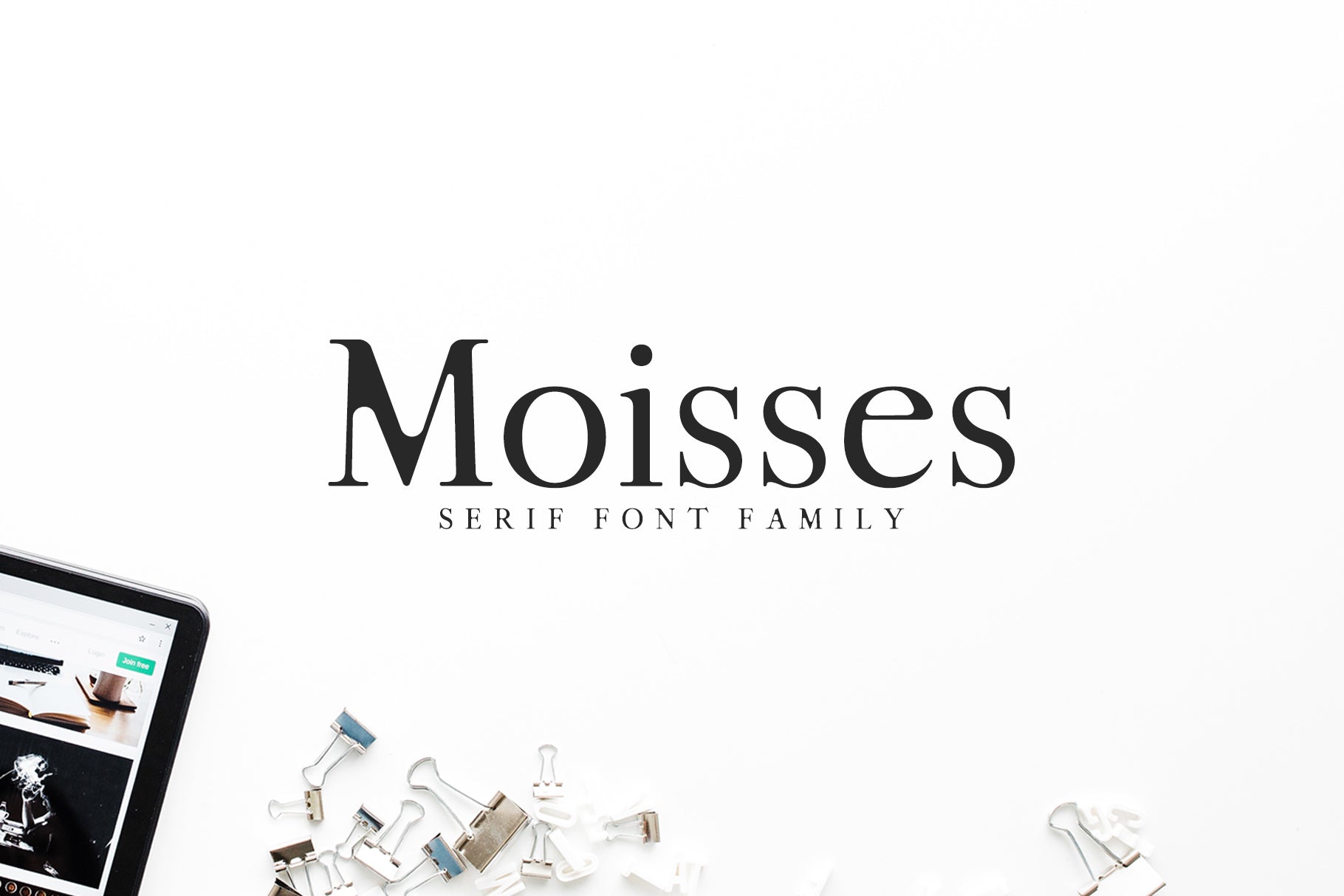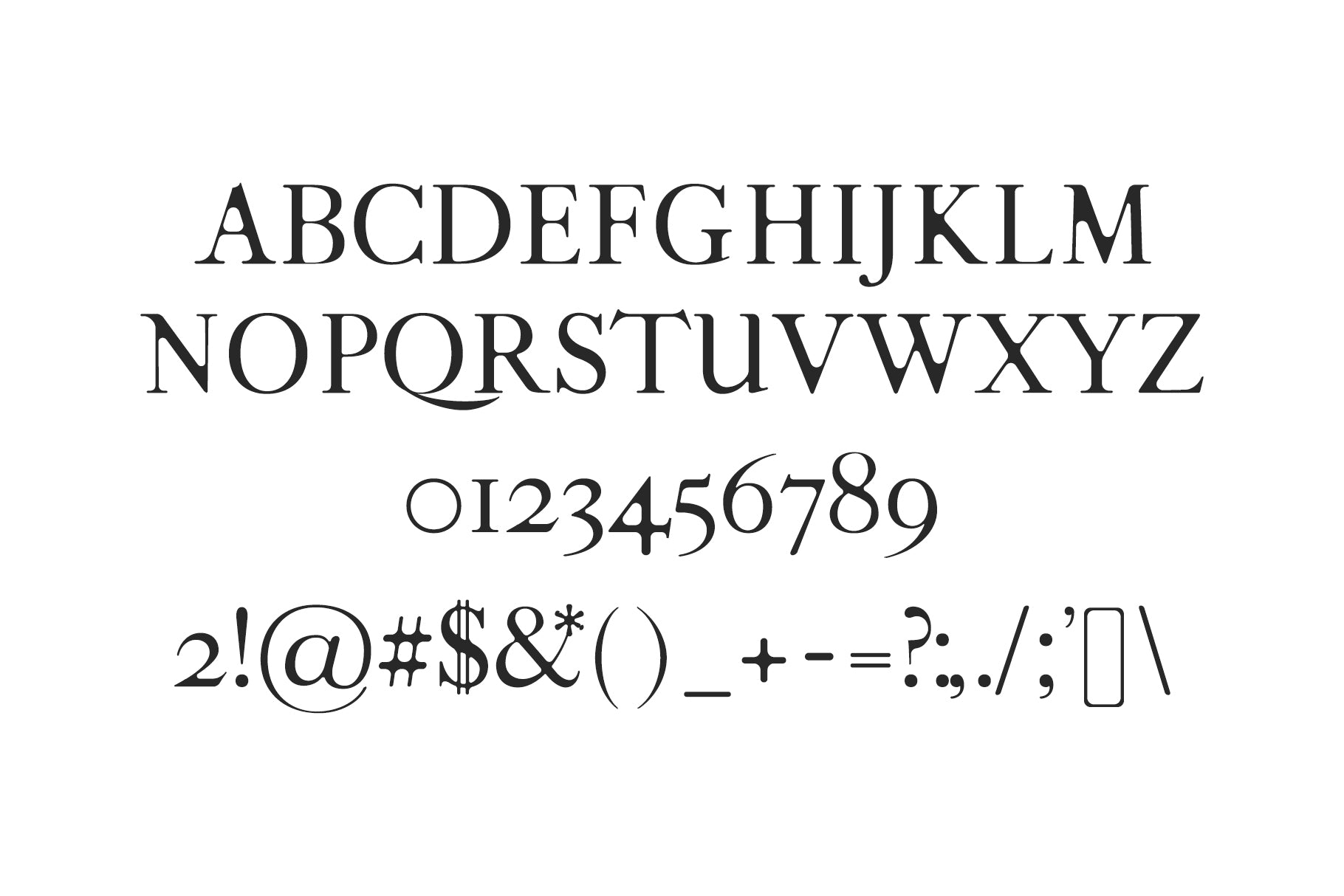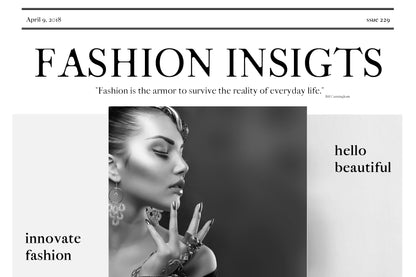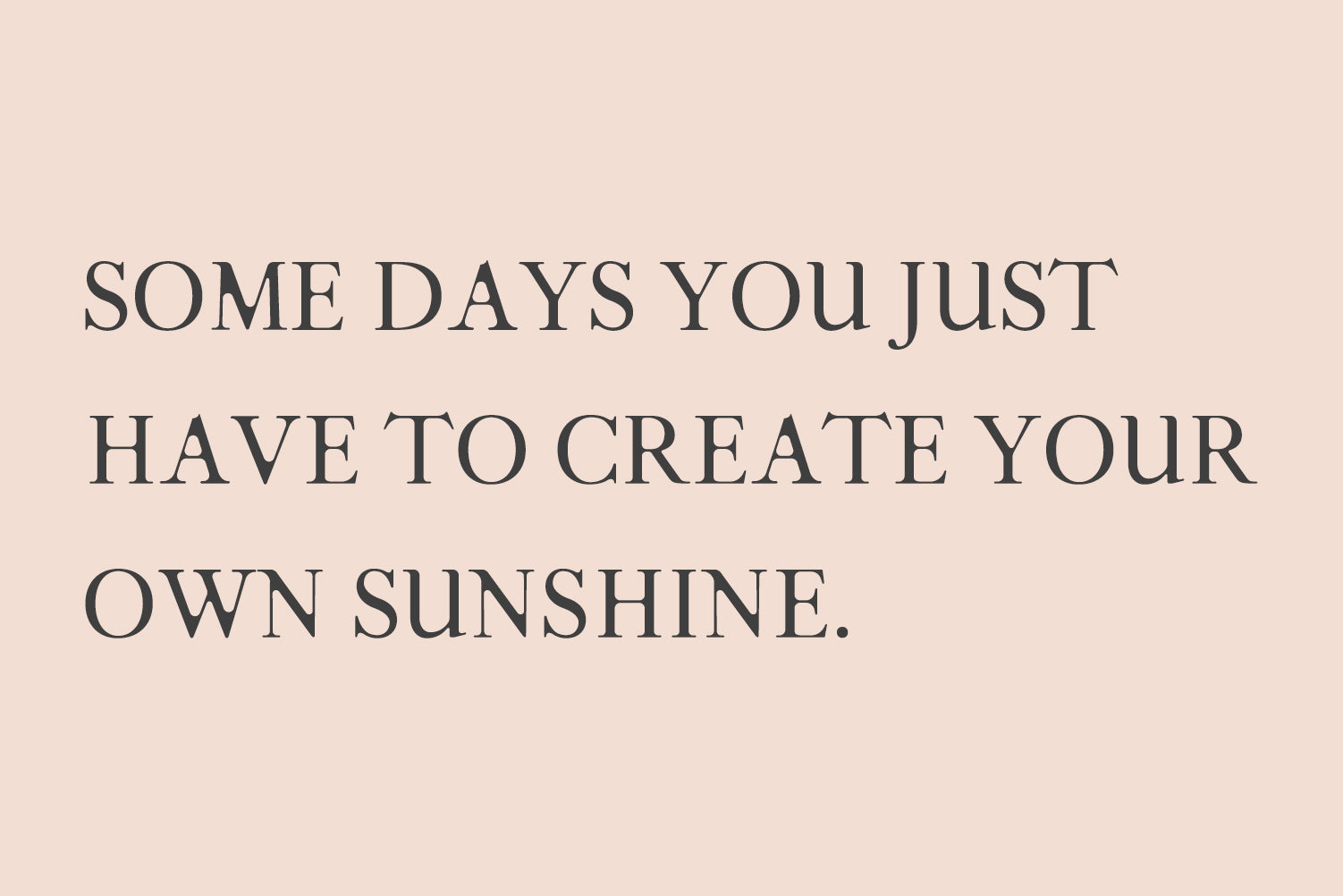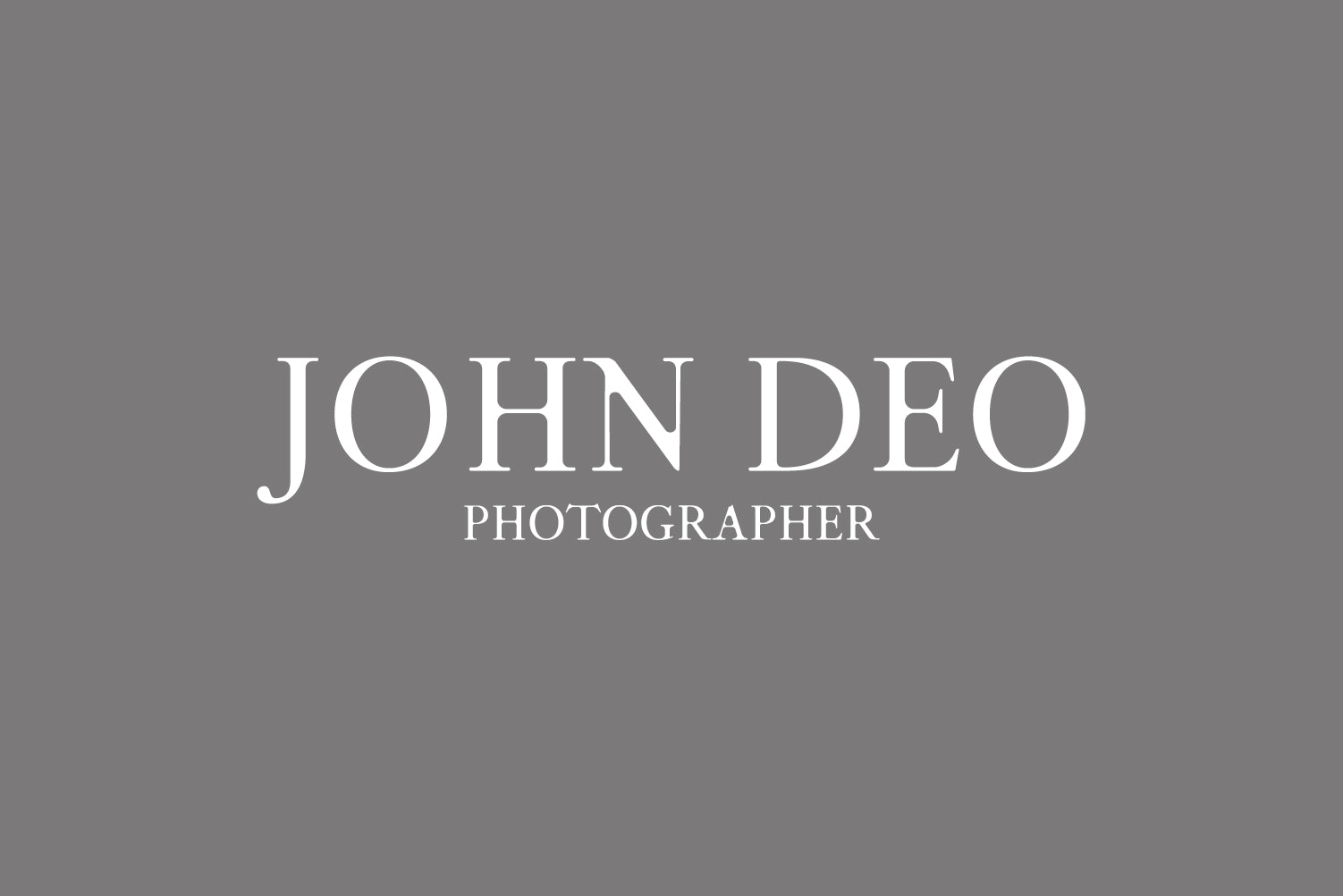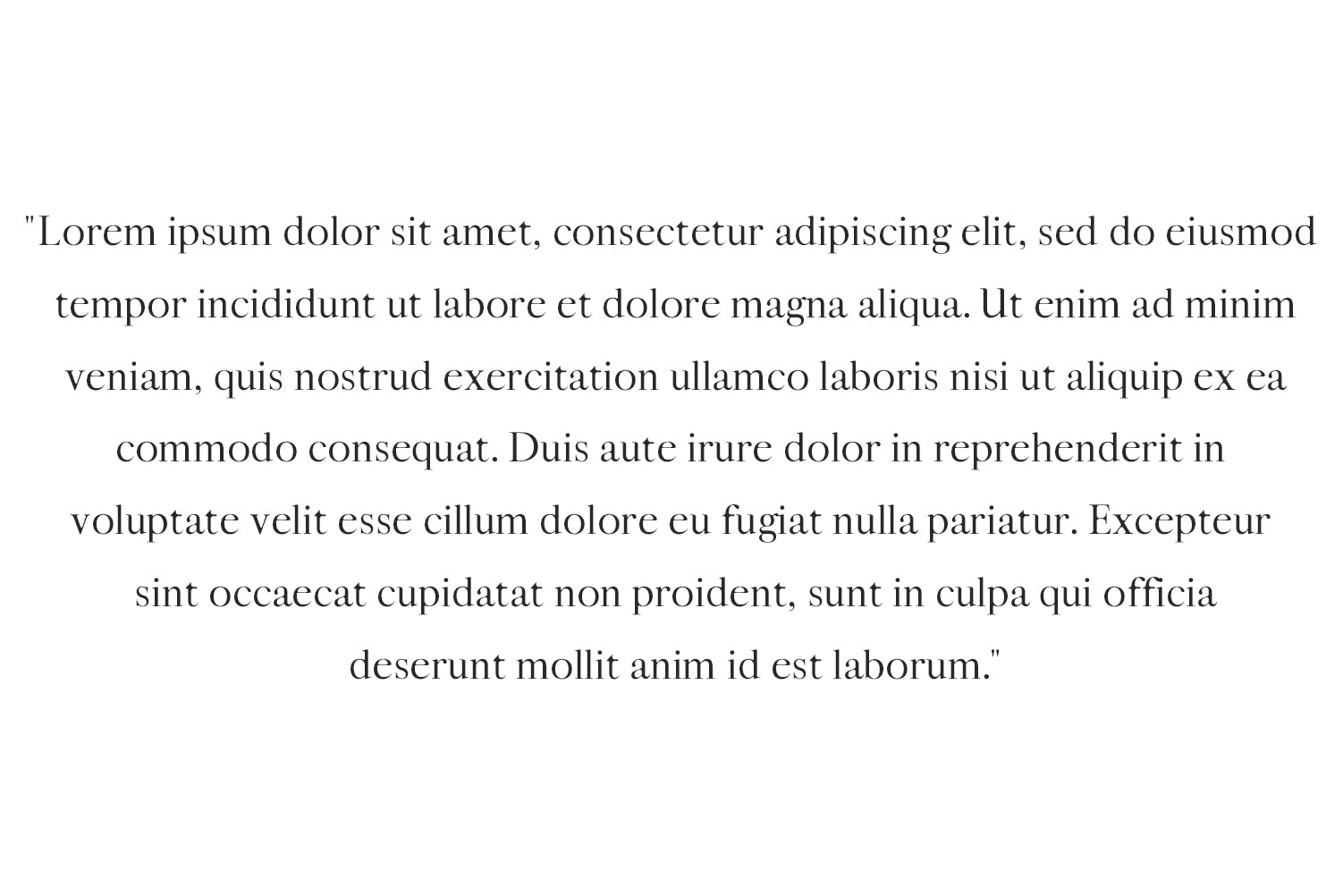
Moisses is a simple rounded serif font. Each weight includes all basic gylphs with non-english characters.
Included Features:
Font Weight: Round, Light Round and Bold Round
Moisses Font Features:
Uppercase Multilingual Letters
Lowercase Multilingual Letters
Numbers & Punctuation
Non English Characters (Latin Extended A)